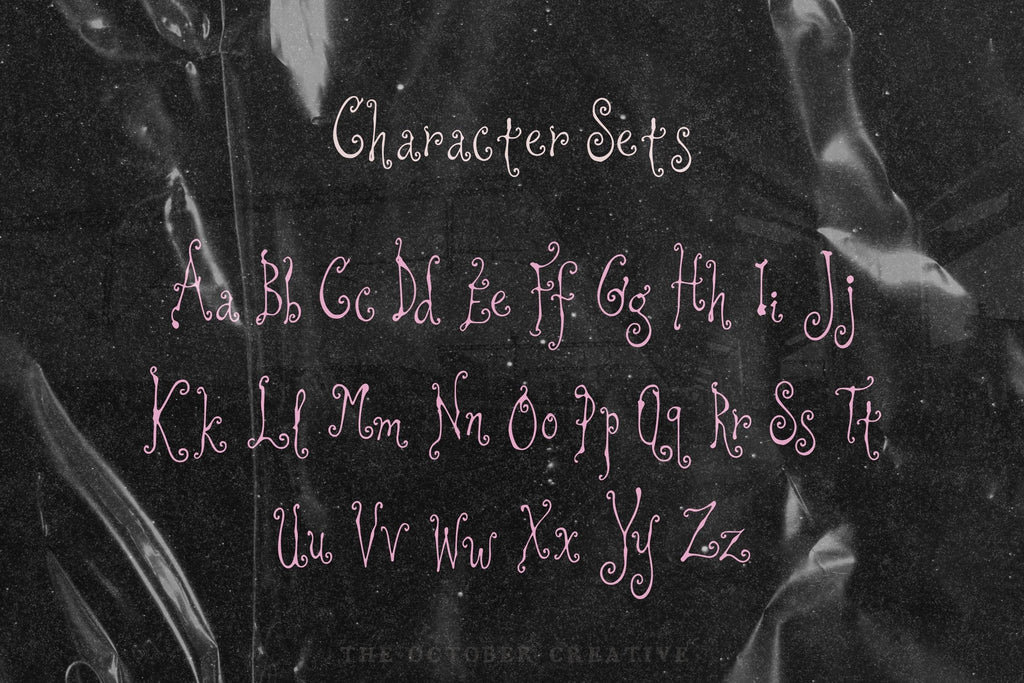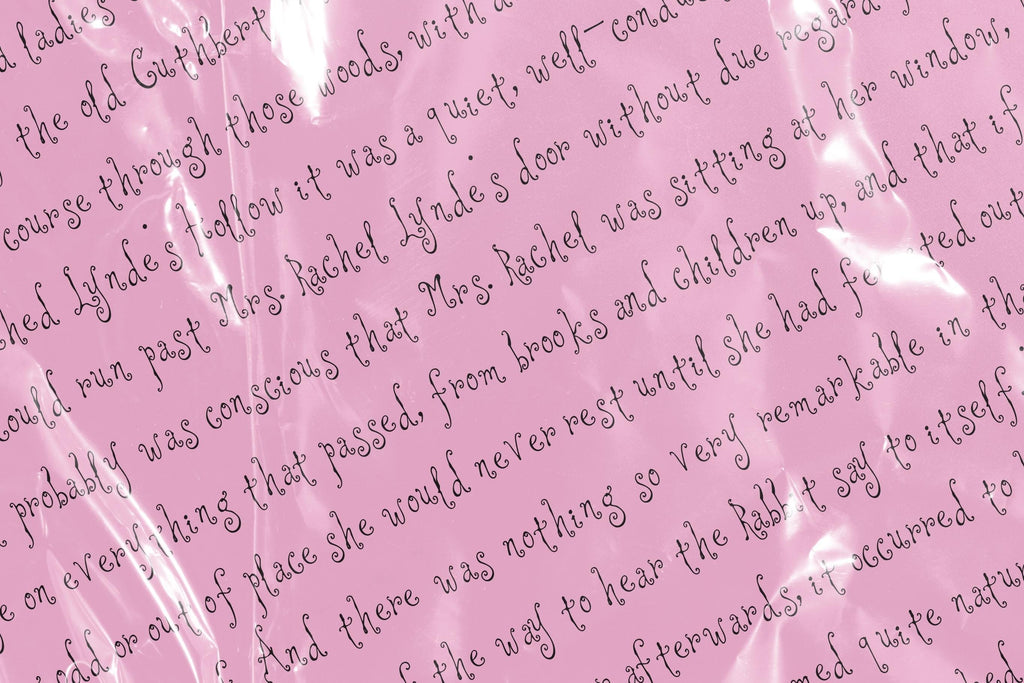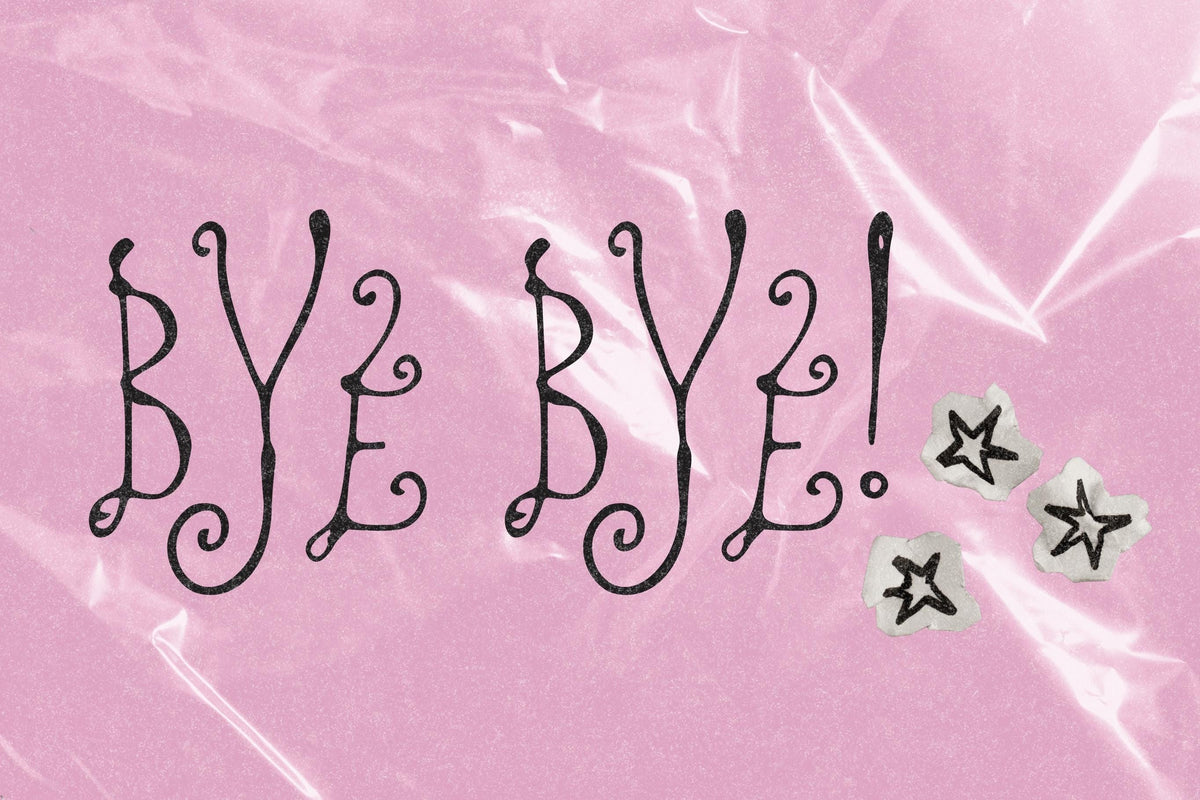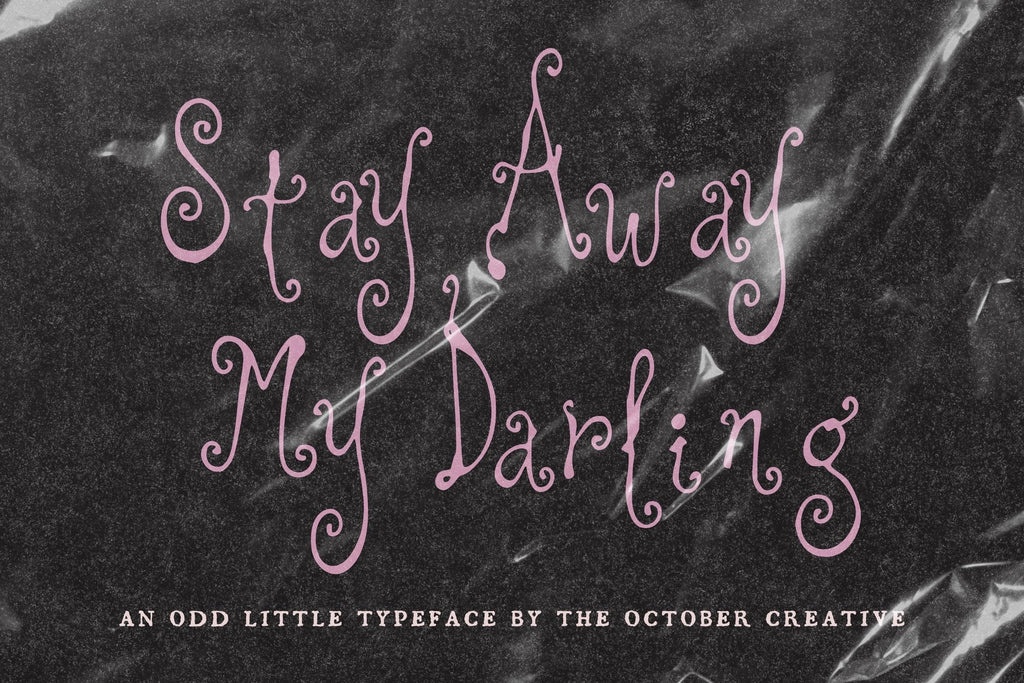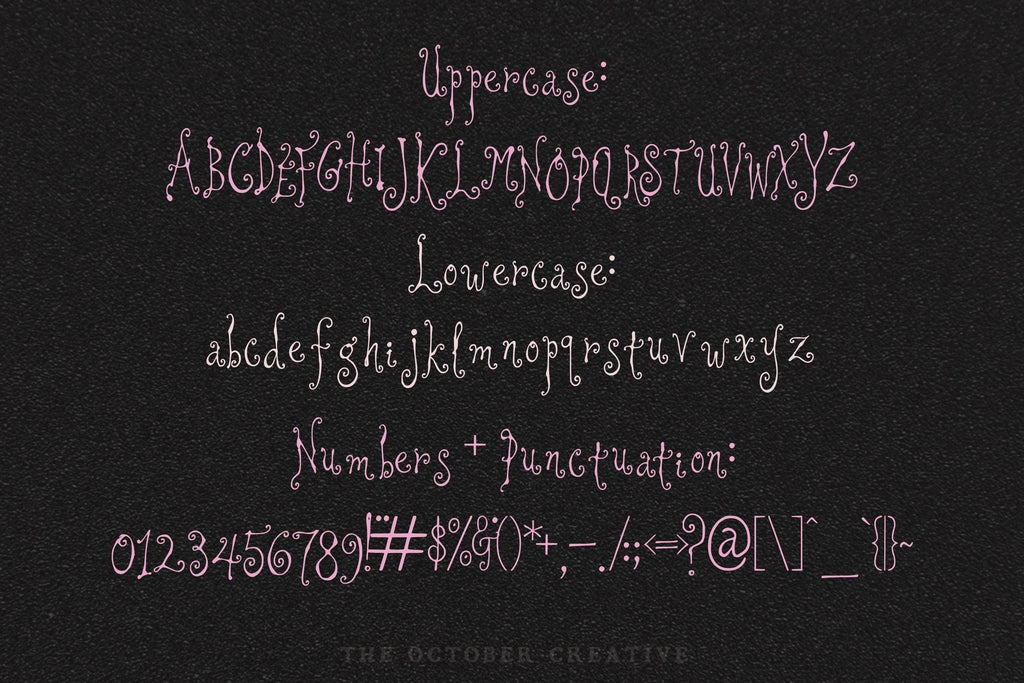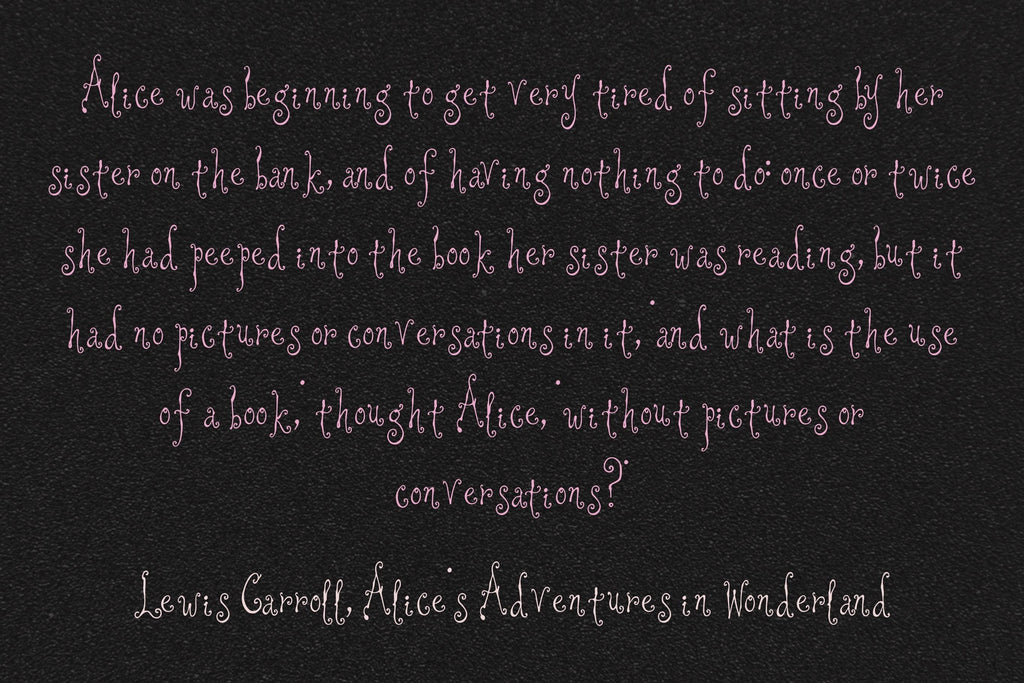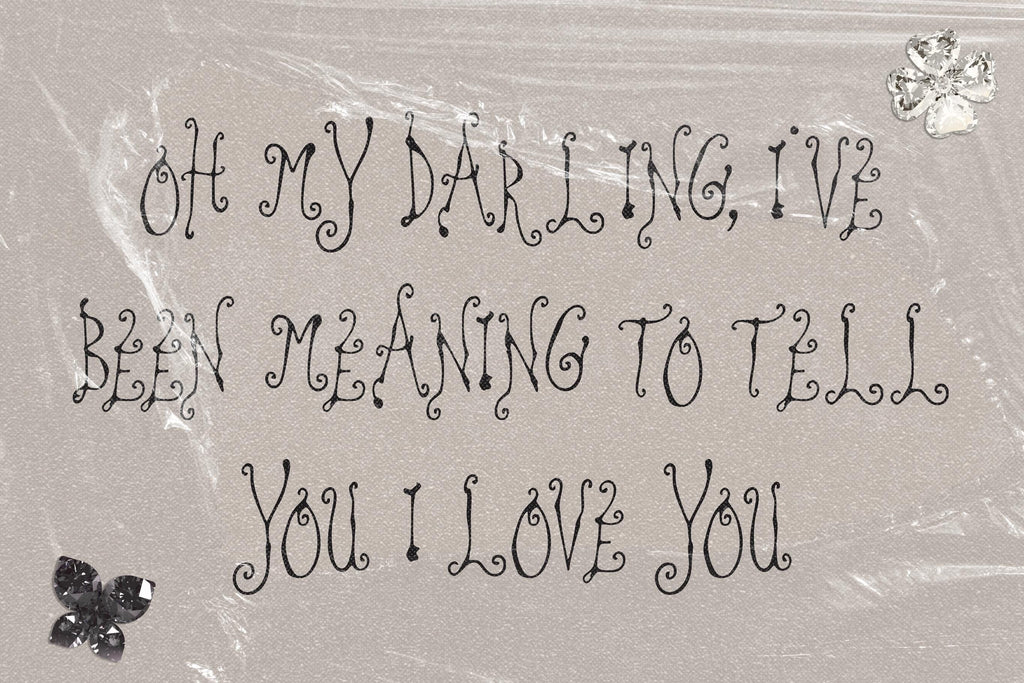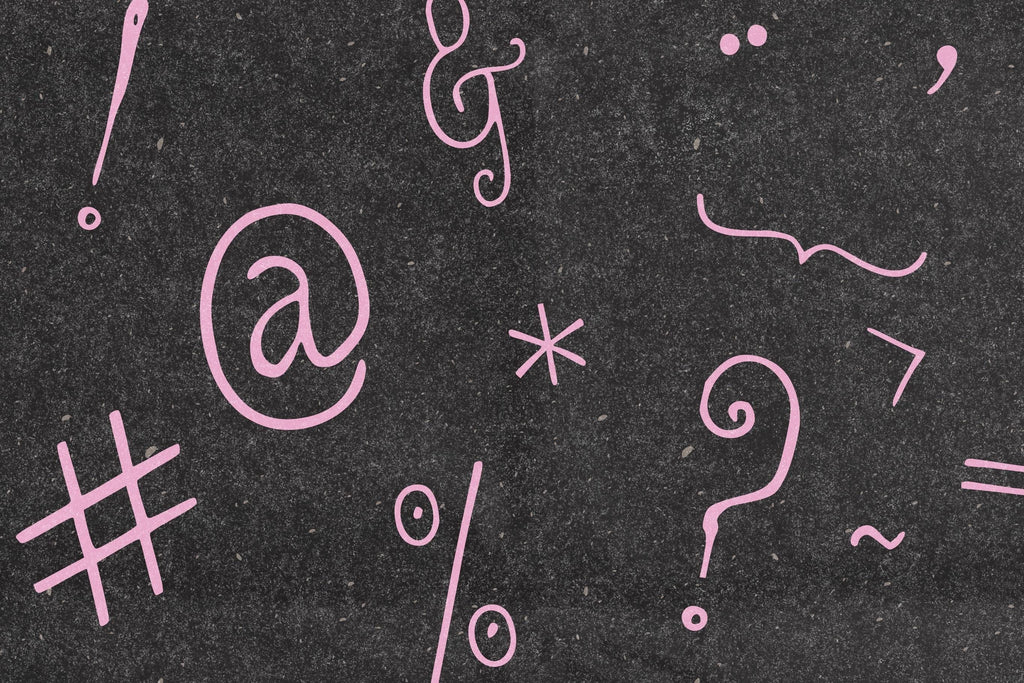
Stay Away My Darling Font
Stay Away My Darling is a spooky cute font with thin letters covered in little curls and dots. It's made for Halloween party invitations, trick-or-treat signs, candy labels, and spooky season decor.